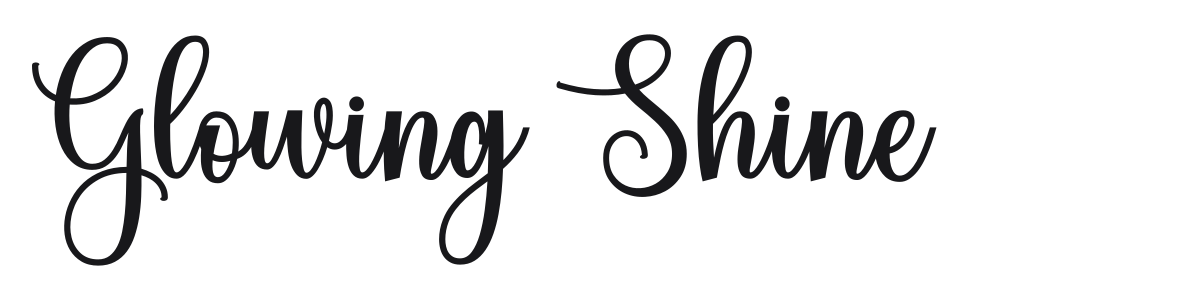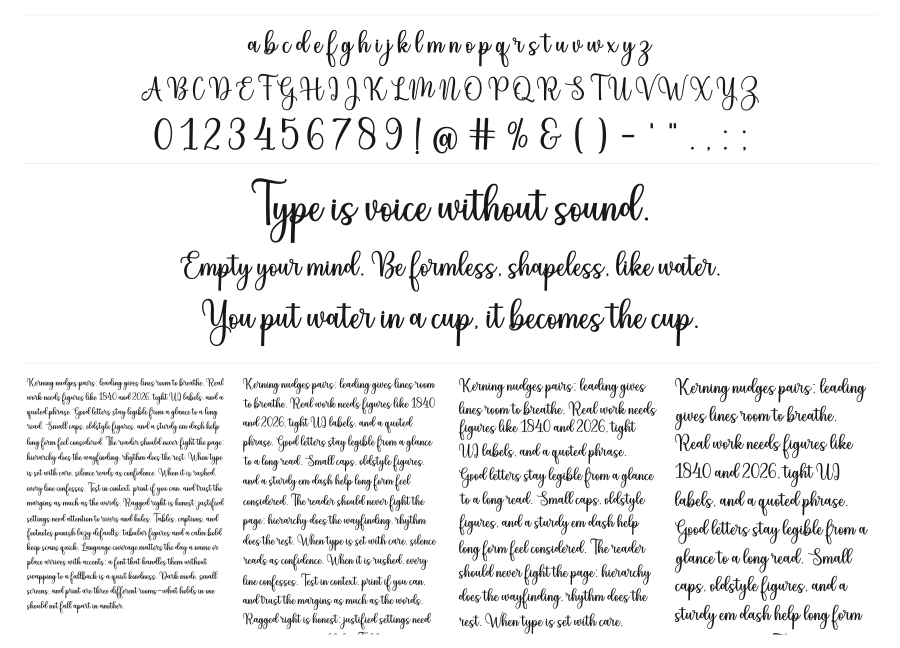
Glowing Shine
Glowing Shine is a contemporary casual script with smooth, flowing strokes and a natural handwritten rhythm. The connected letters move with an easy bounce that feels personal and warm without tipping into formality. It suits branding, packaging, and social media graphics where a friendly human touch is the point.